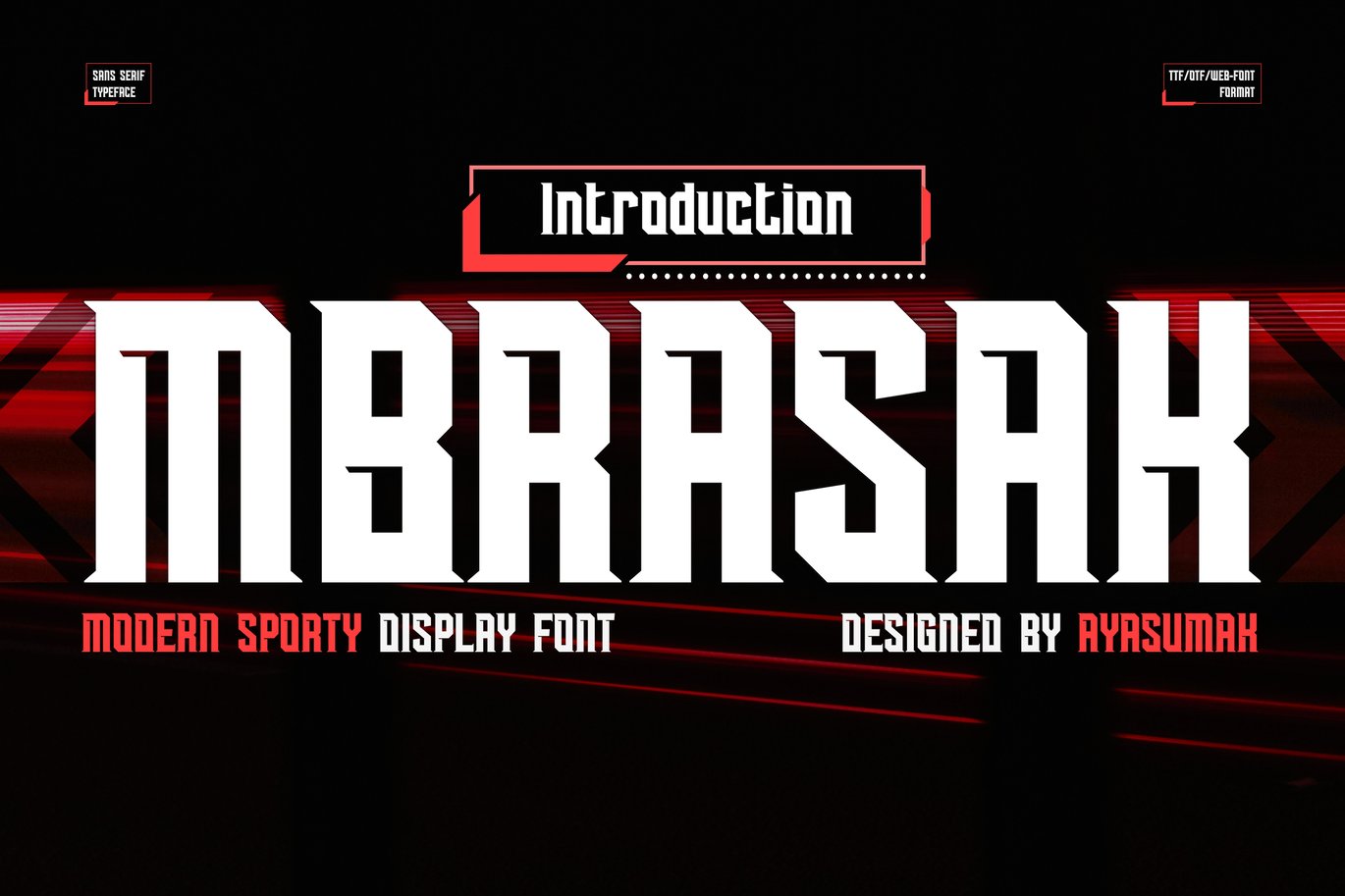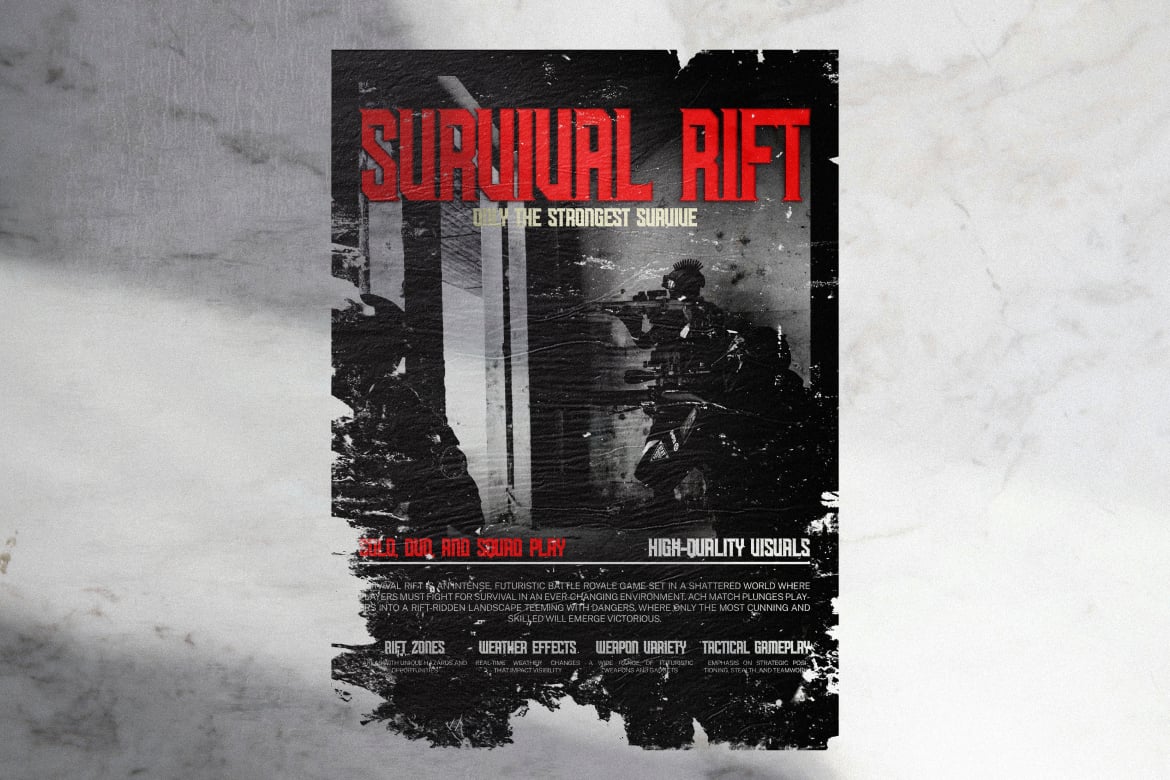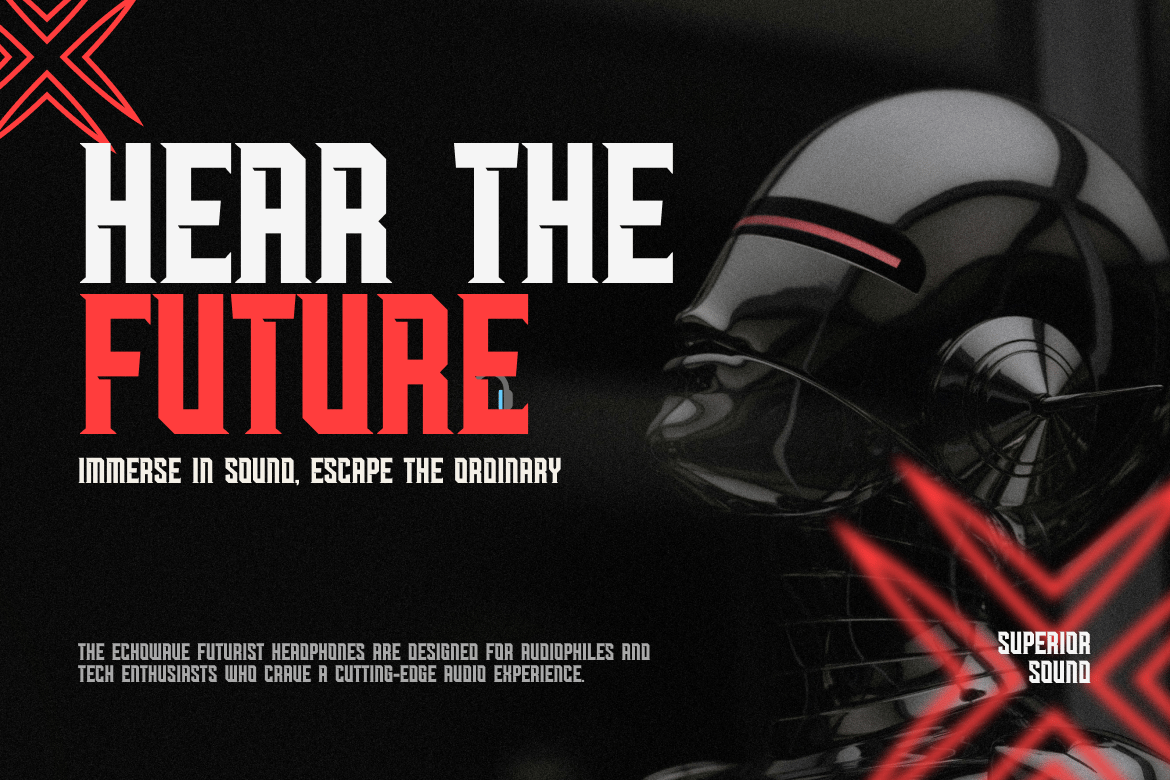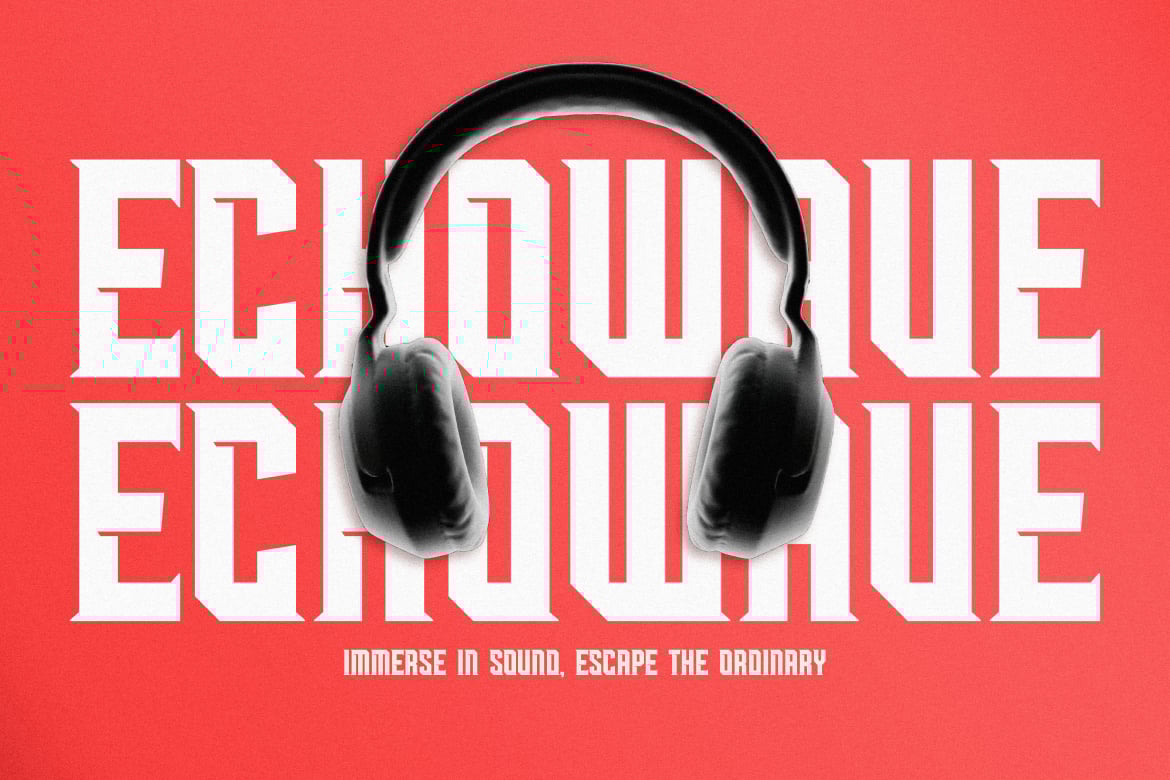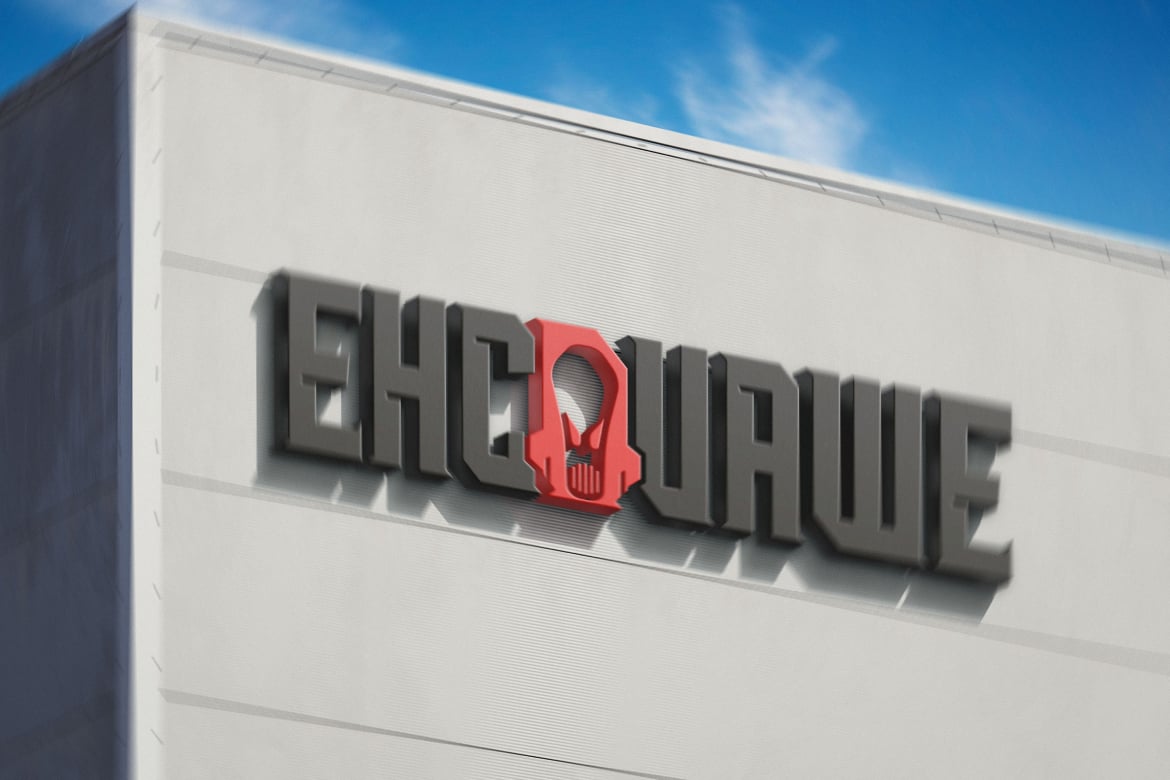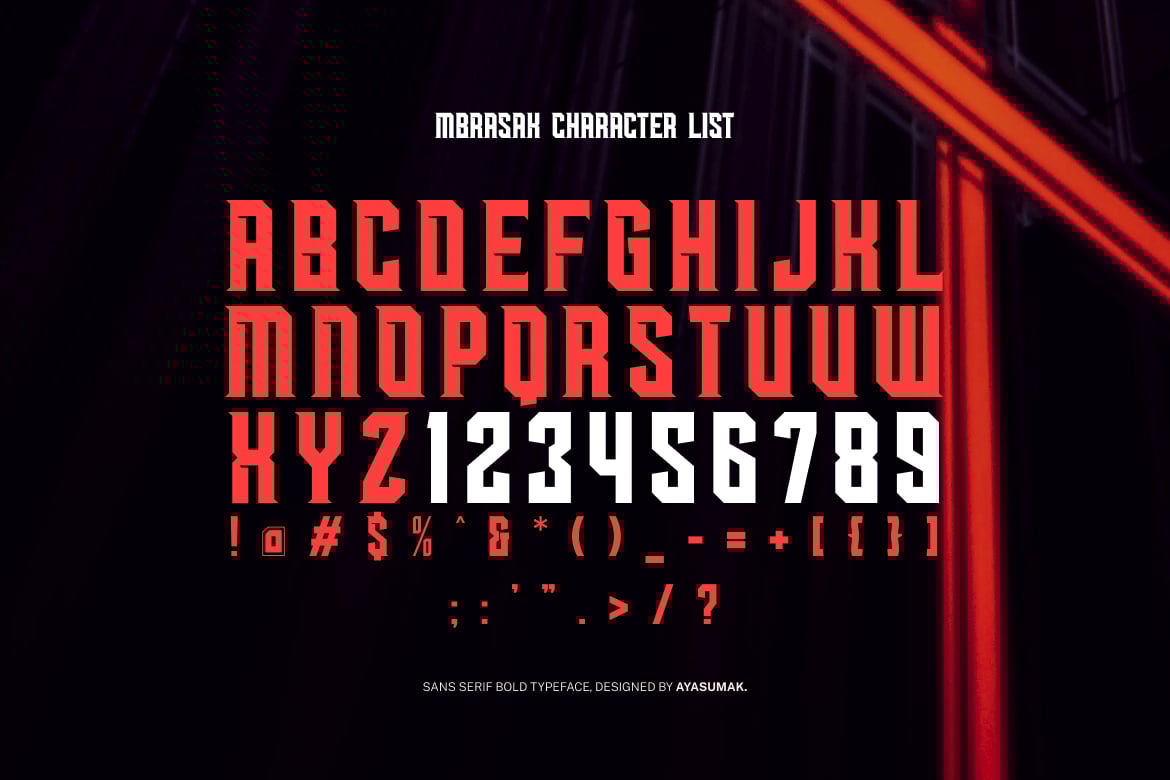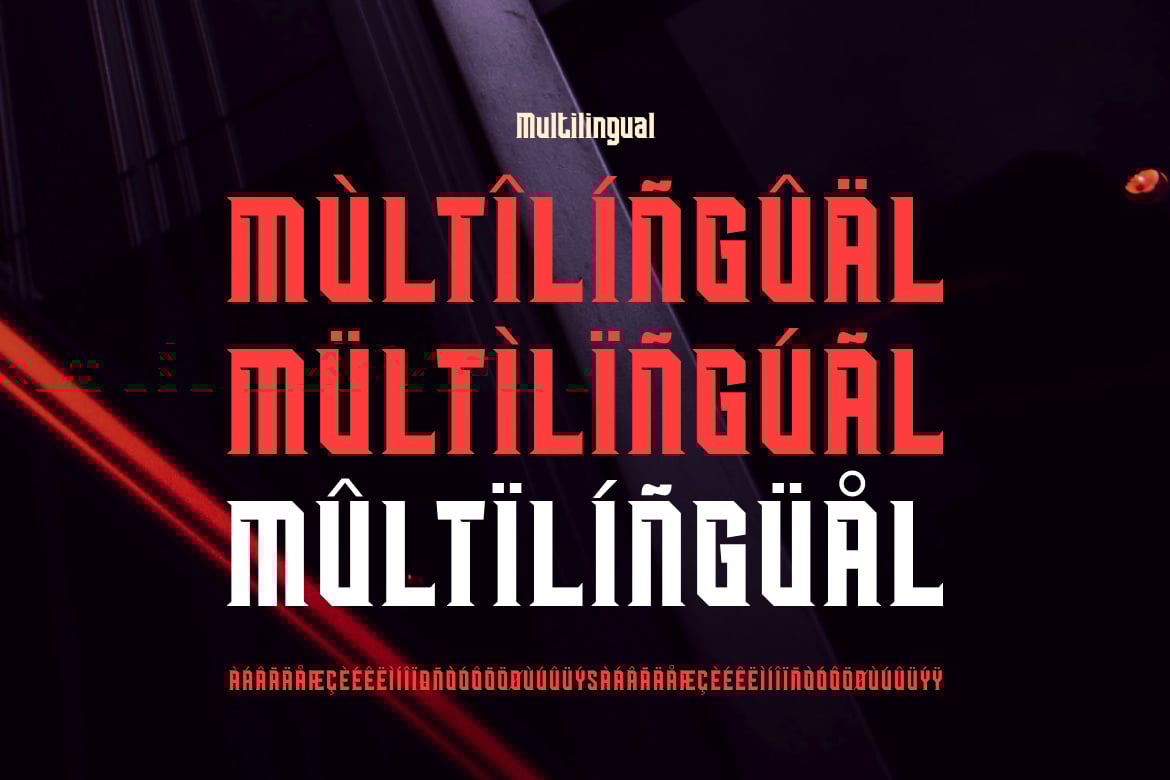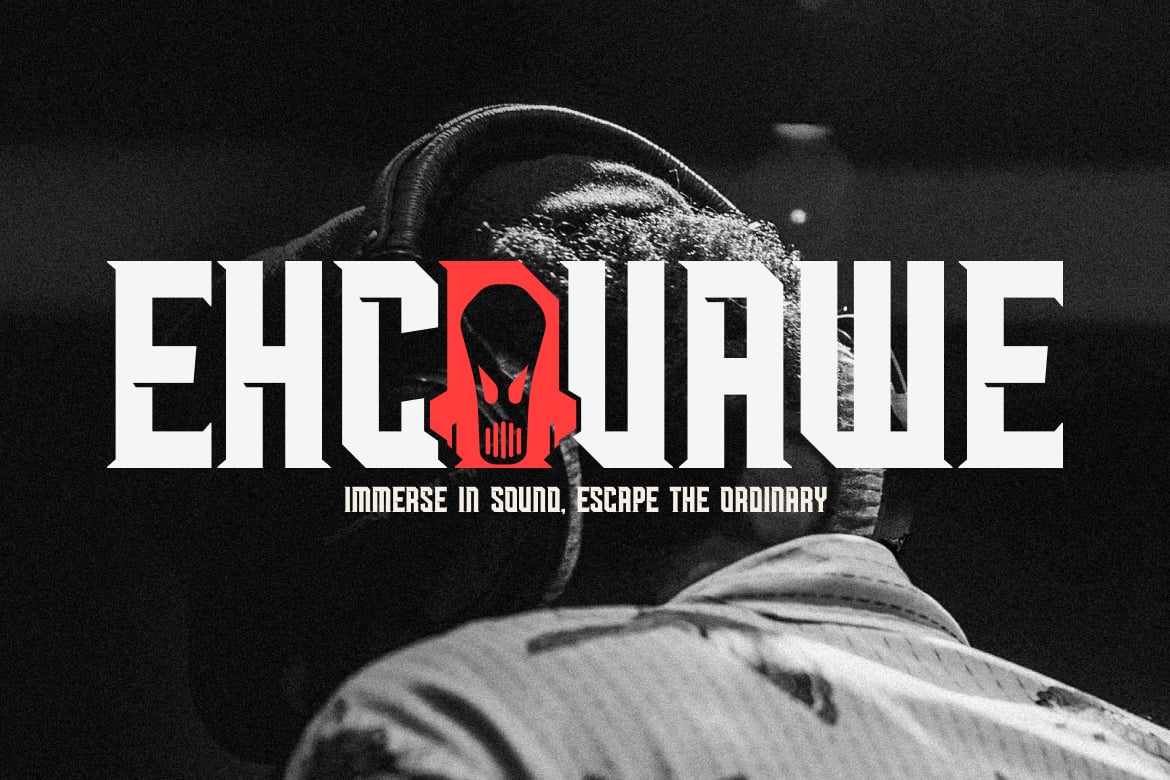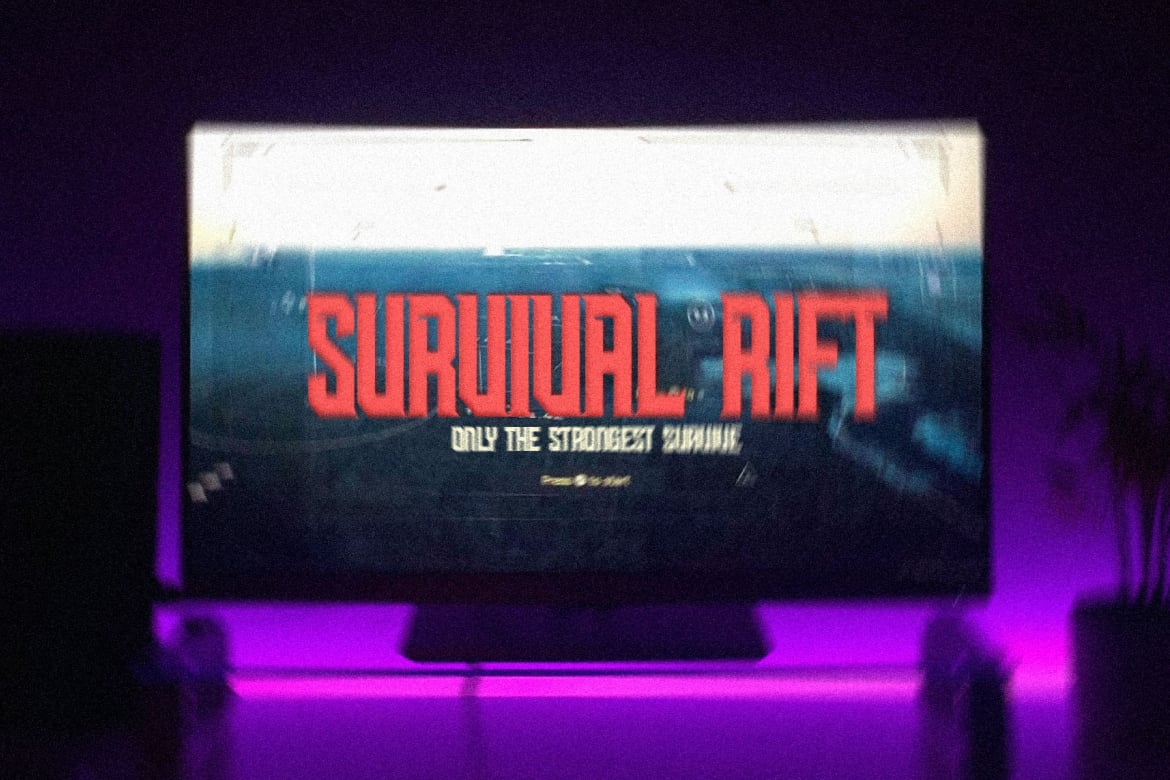
Mbrasak – Sports Gamer Bold Font
Introducing Mbrasak – Sports Gamer Bold Font – a Modern Professional Typeface excellent used for Heading or Title, Logotype, Merchandise, Clothing, Magazine, Ticket, Scoreboard, Sports Flyer and many more.